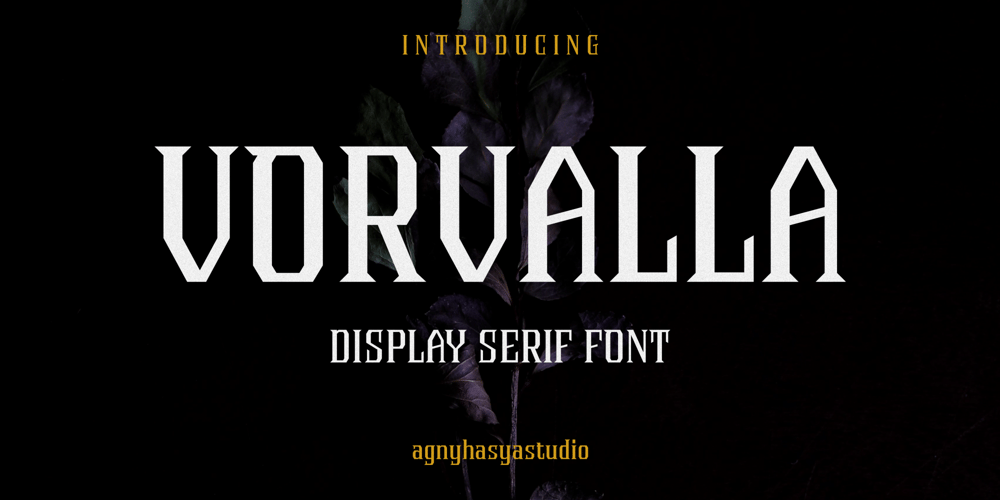
Vorvalla Font Family was designed by Firman Maulana and published by Agny Hasya Studio. Vorvalla contains 1 styles and family package options. Vorvalla is a Gothic Decorative Display Serif Font Featured with Uppercase and Lowercase, Numerals, Punctuation, and OpenType Features. Perfect for your design projects like logos, branding, advertising, product designs, stationery, magazine designs, book/cover title designs, photography, art quotes, Special events, labels, product packaging, and more.